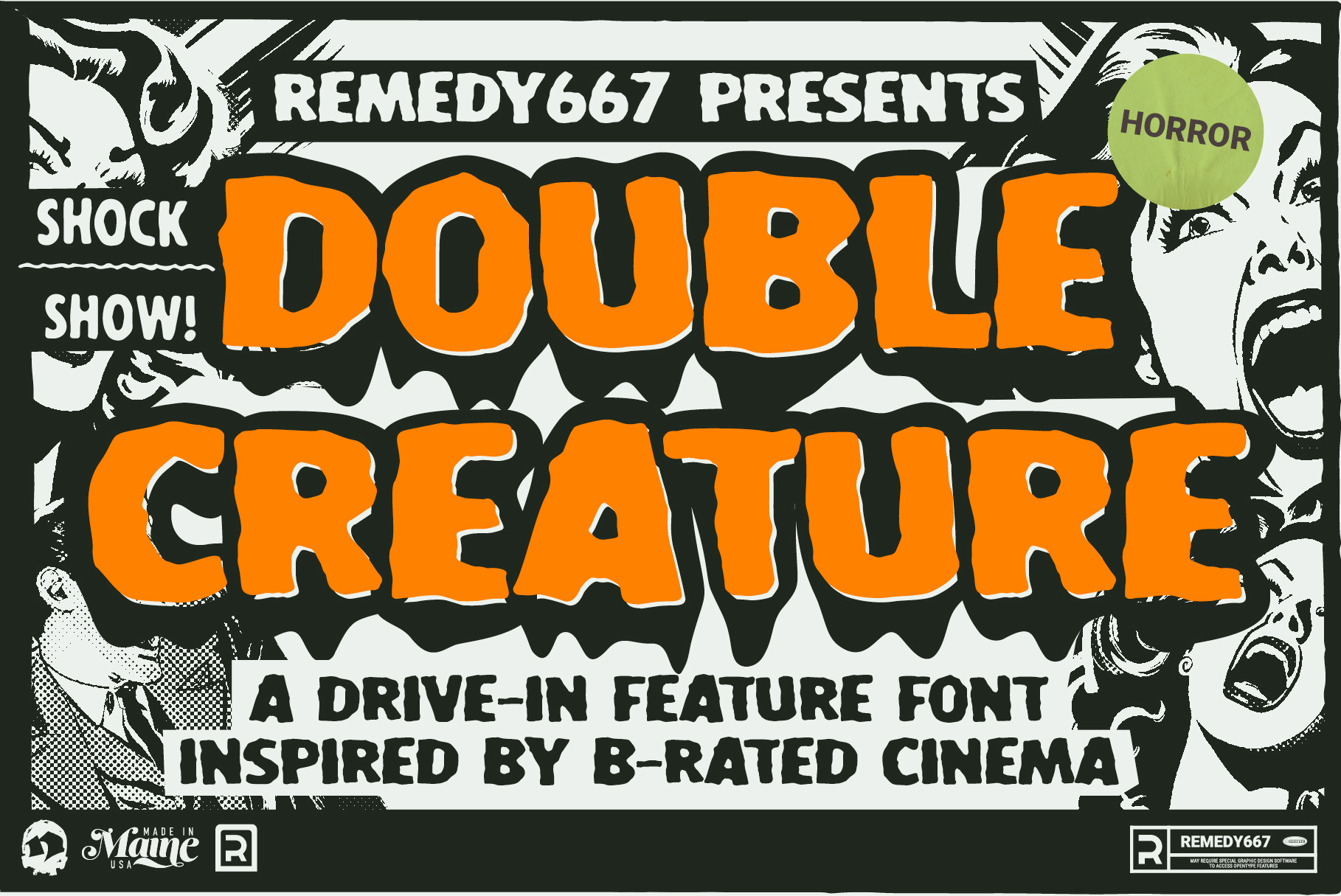
Double Creature - Layered Font
Drive-in thrills: Double Creature – the ultimate font for those who dare to venture into the realm of b-movies and monster cinema. This layered font brings extra level spooky vibes to your designs. Whether you’re creating posters, book covers, or social media graphics, Double Creature will transport your audience to a thrilling midcentury cinematic horror experience. Unleash the Double Creature and watch your designs come alive!
- 2 Fonts layer to bring your designs to the next level
- In the darkness of the drive-in, Double Creature emerges to terrify and delight!